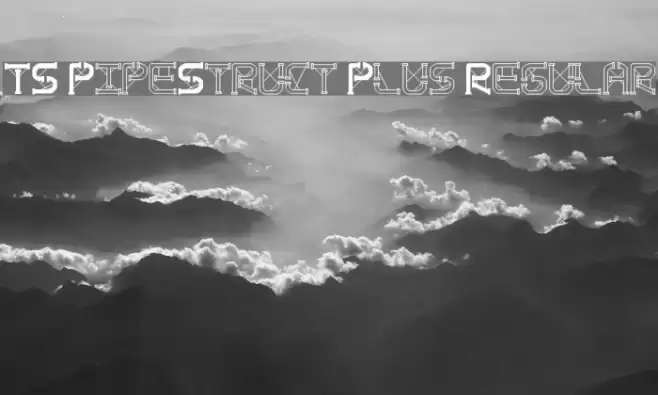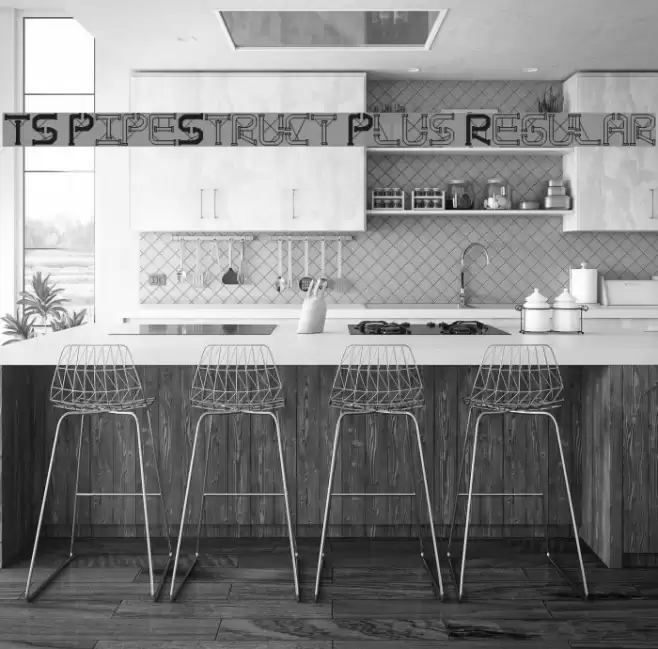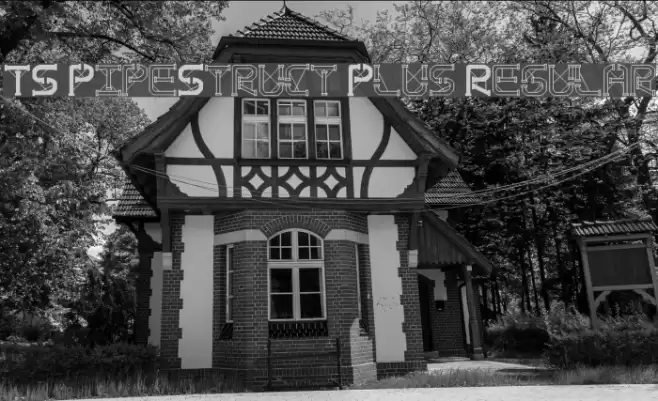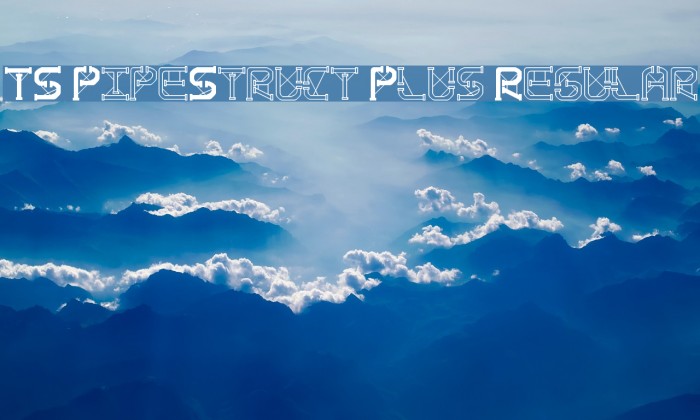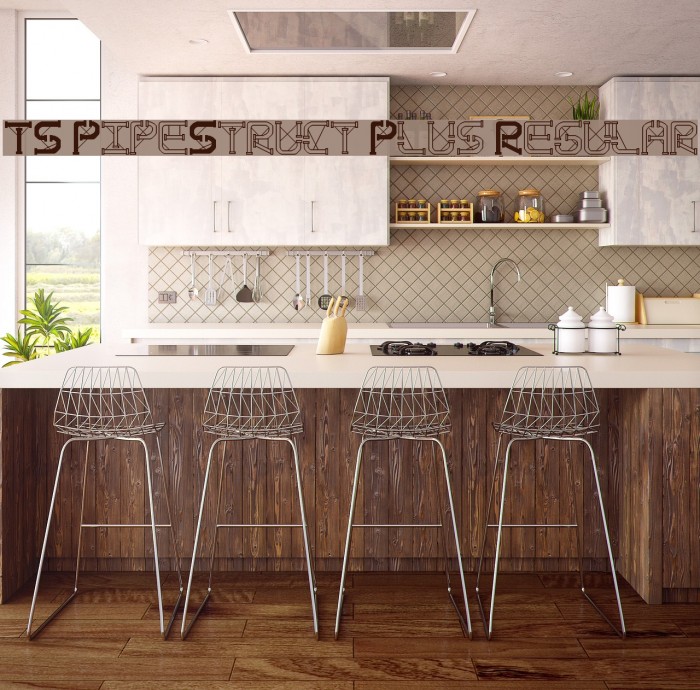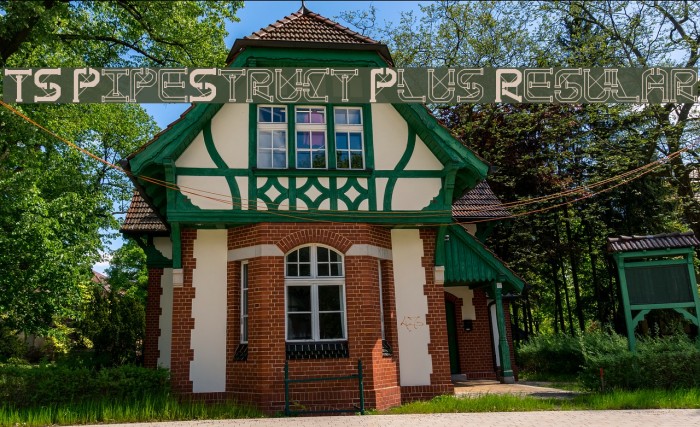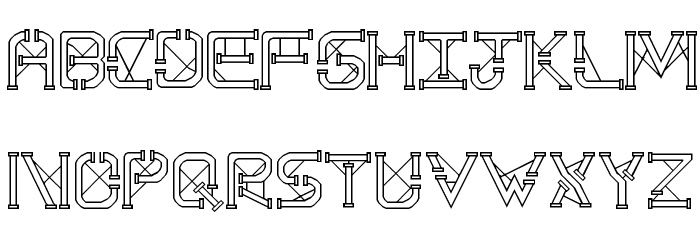
TS PipeStruct Plus Regular Font
TS PipeStruct Plus Regular Description
This font features a unique, industrial design with a structured, geometric appearance. The characters are composed of bold, interconnected lines that resemble pipes or structural elements, giving it a mechanical and futuristic feel. The uppercase letters are particularly striking, with angular forms and consistent line thickness. The lowercase letters maintain the same structural integrity, ensuring uniformity across the typeface. The numerals and special characters follow the same design principles, making them easily recognizable and cohesive with the rest of the font. This typeface stands out with its bold, architectural style, making it ideal for projects that require a modern and edgy look.
A bold, industrial font with geometric, pipe-like structures and a futuristic aesthetic from Uncategorized fonts.
- Proposed Projects: Ideal for branding, logos, posters, and any design project that requires a modern, industrial touch.
- Overall Style: Modern, Industrial
- Use Case: Logos, Posters, Branding